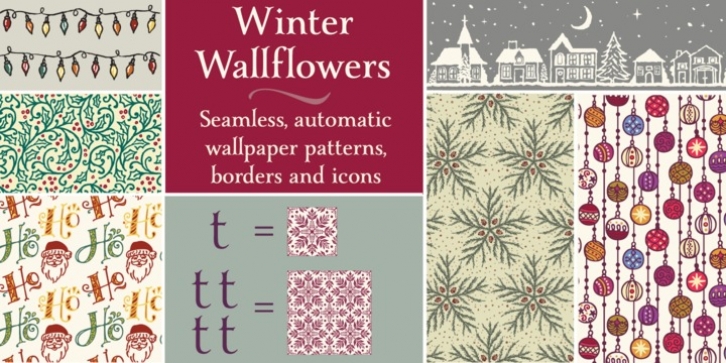
Winter Wallflowers — 25 unique hand drawn wallpaper tiles and 61 accompanying icons. This font can be used as icons, borders, and/or wallpaper patterns.
Wallflowers are very easy to use, for borders or wallpaper, simply type the same letter consecutively (for example: aaaa or bbbb, et cetera) and voila! The pattern will emerge. Refer to the Users Guide in the Gallery and included with your download for further instruction and to view the patterns included.